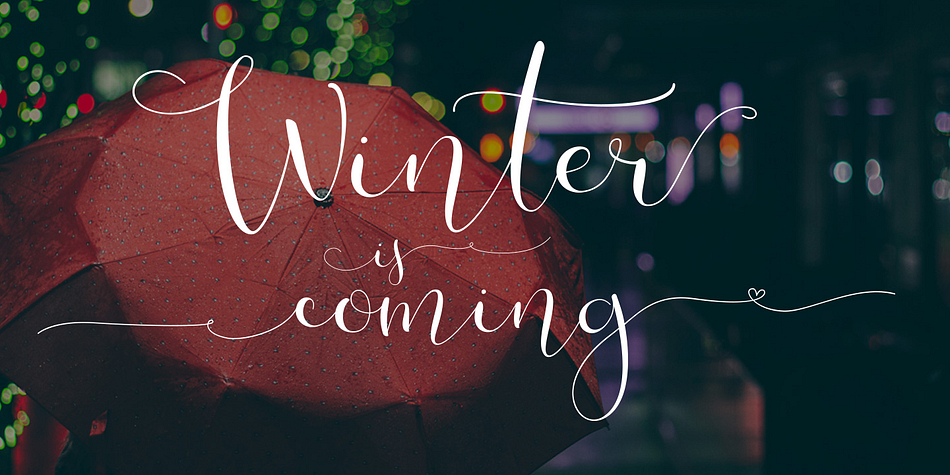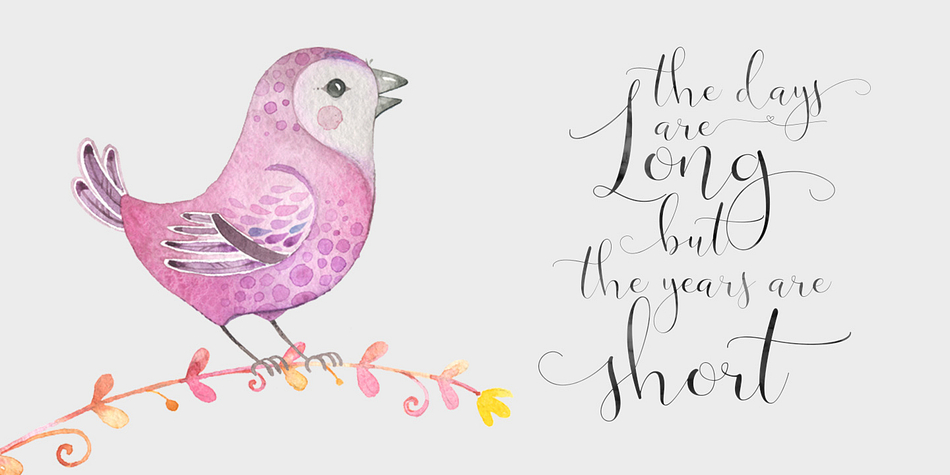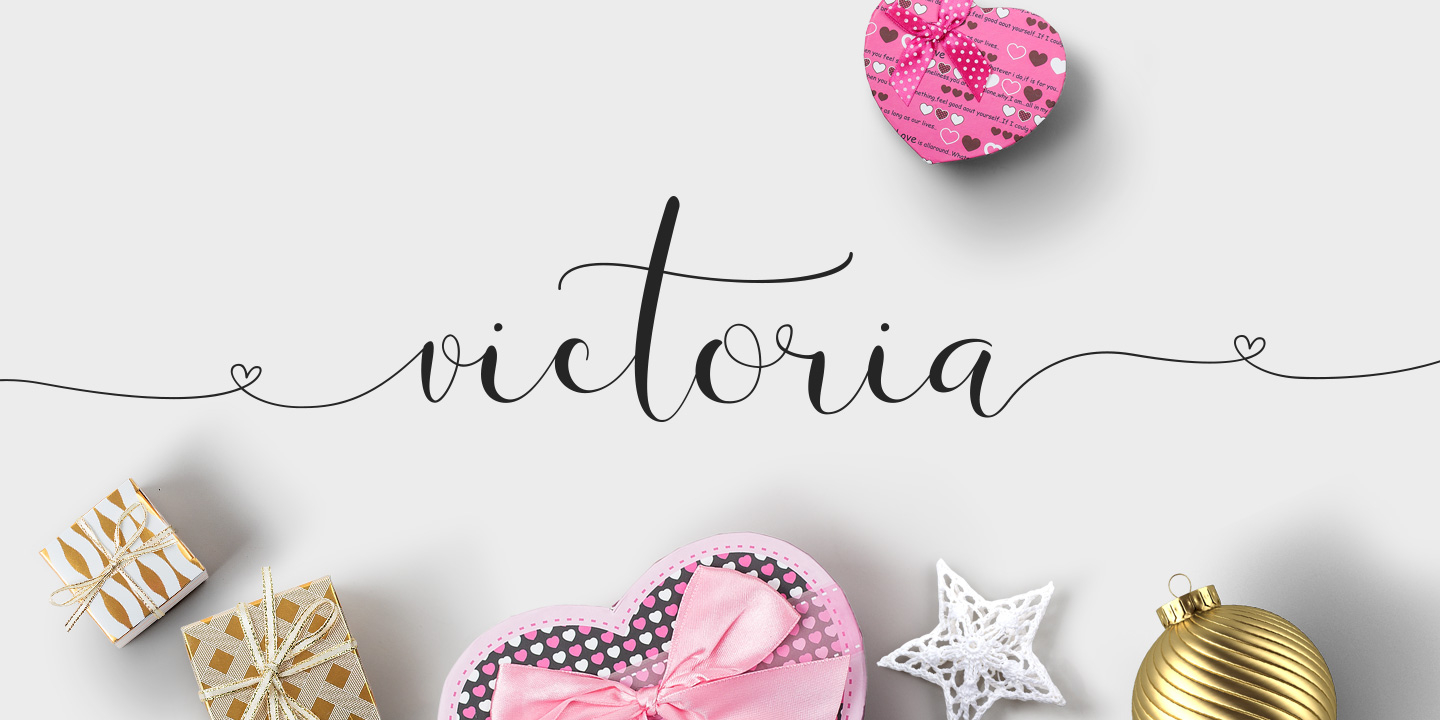
Victoria is a modern calligraphy font published by mysunday.
Victoria is handcrafted script font. Including a ton of glyphs, initial and terminal letters, alternates, ligatures and has given PUA Unicode (specially coded fonts).
Can be used for various purposes; headings, signature, logos, wedding invitation, t-shirt, signage, labels, posters, badges etc. To enable the OpenType Stylistic alternates, you need a program that supports OpenType features such as Adobe Illustrator CS, Adobe Indesign, Microsoft Word 2010 or later versions.
Style | Modern Calligraphy |